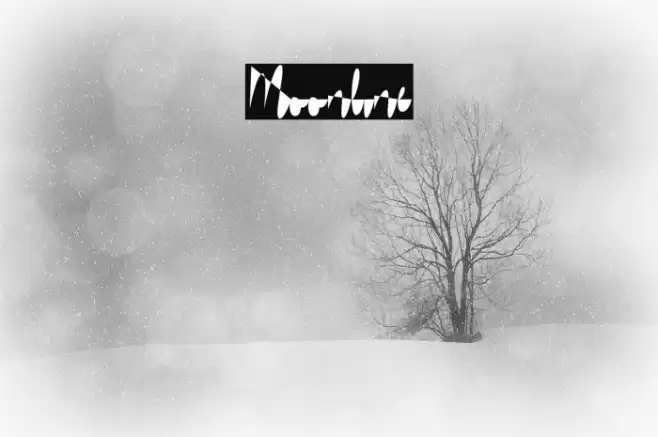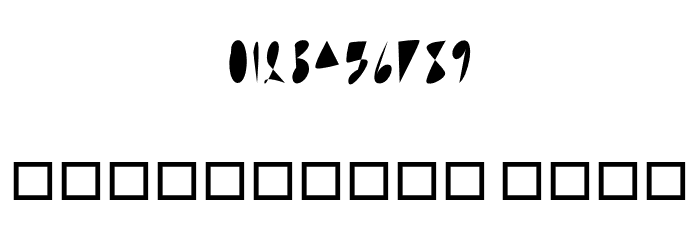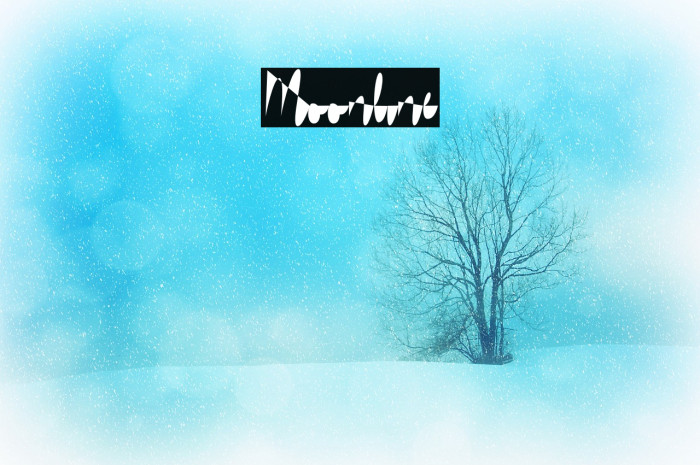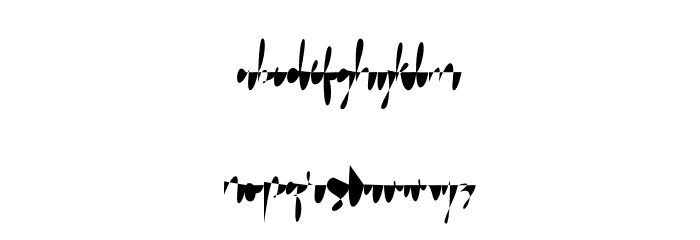
Moonline Font
Moonline Description
This font features a highly abstract and artistic design, characterized by its fragmented and geometric letterforms. Each character is composed of bold, irregular shapes that create a sense of movement and dynamism. The uppercase letters are particularly striking, with sharp angles and contrasting thick and thin strokes. The lowercase letters maintain this abstract style but are slightly more fluid, offering a unique blend of readability and artistic expression. The numbers follow the same design principles, ensuring consistency across the font. This font's unique style makes it stand out, ideal for creative and unconventional design projects.
An abstract, artistic font with fragmented, geometric letterforms and dynamic shapes from Uncategorized fonts.
- Proposed Projects: Ideal for modern art projects, avant-garde posters, album covers, and creative branding.
- Overall Style: Modern, Artistic
- Use Case: Headlines, Logos, Artistic projects